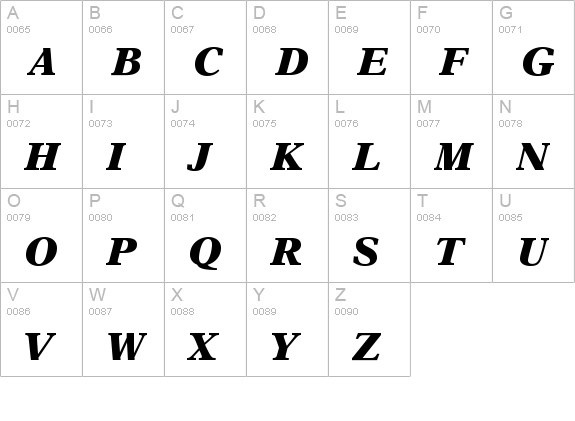
New Aster Black Italic is a maximum-weight, dramatic, italic variant in the New typeface family \xE2\x80\x94 well suited to maximum-impact headlines, posters, and packaging.
Introducing the elegant and versatile New Aster Black Italic font, a timeless typeface that exudes sophistication and modernity. With its sleek italic design and bold weight, this font is perfect for adding a touch of style to your projects. Whether you're designing a logo, creating a poster, or crafting a website, New Aster Black Italic is sure to make a statement. What's even better is that this stunning font is completely free to download at FontsMarket.com. Yes, you read that right - you can enhance your designs with the beauty of New Aster Black Italic without spending a dime. So why wait? Head over to FontsMarket.com now and elevate your typography game with this striking typeface.